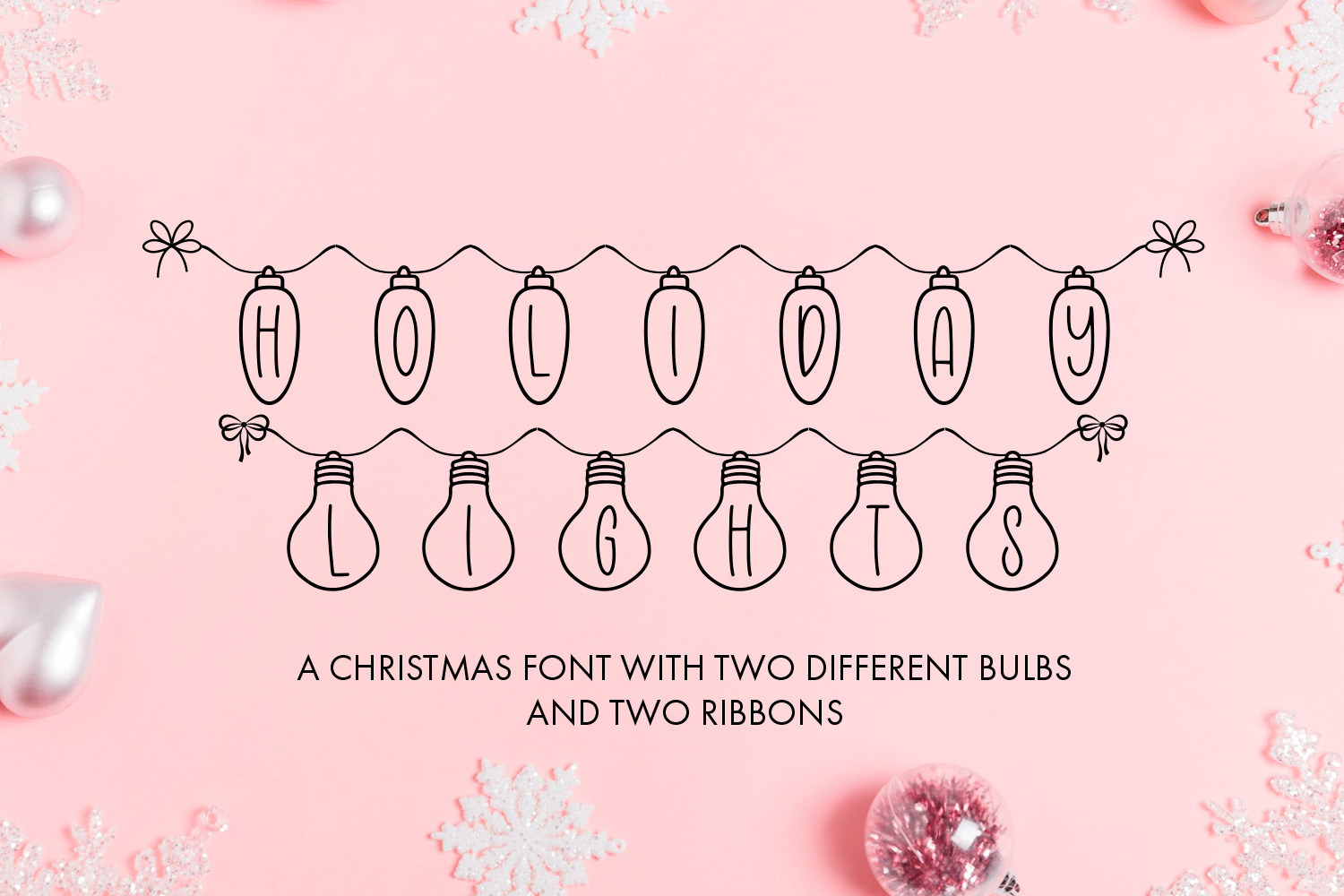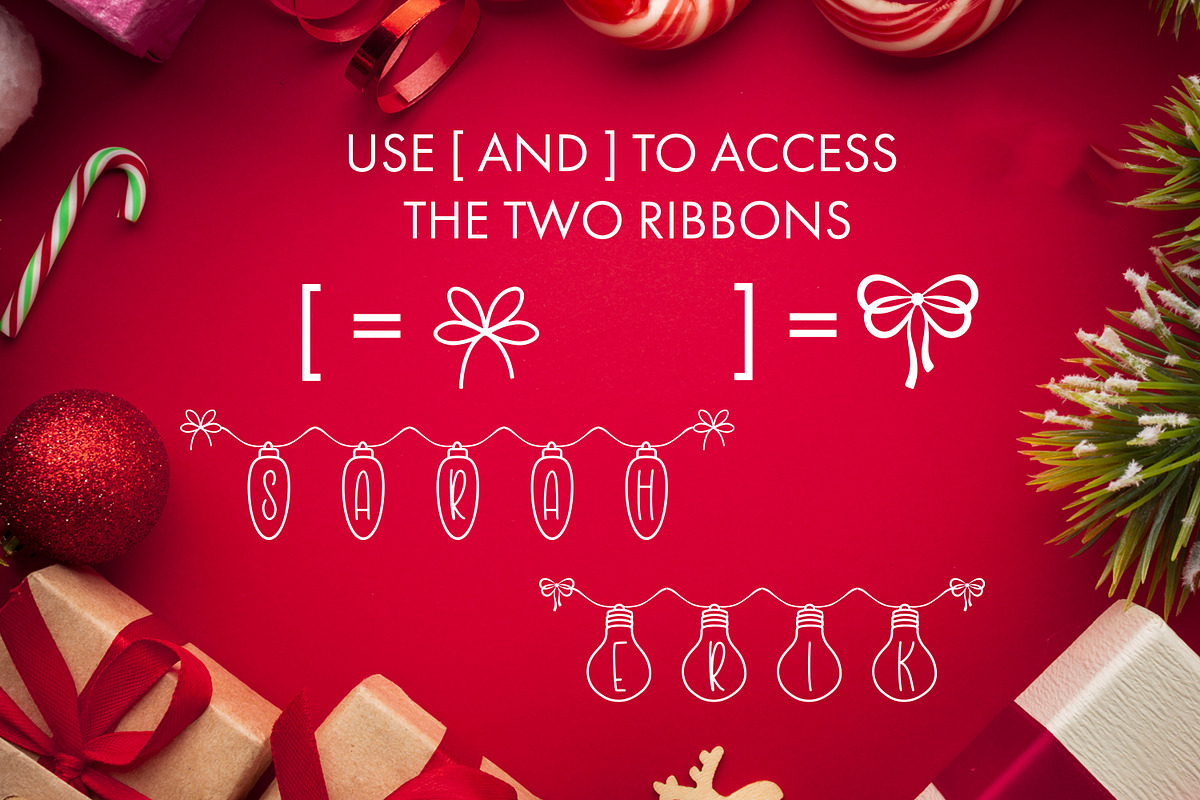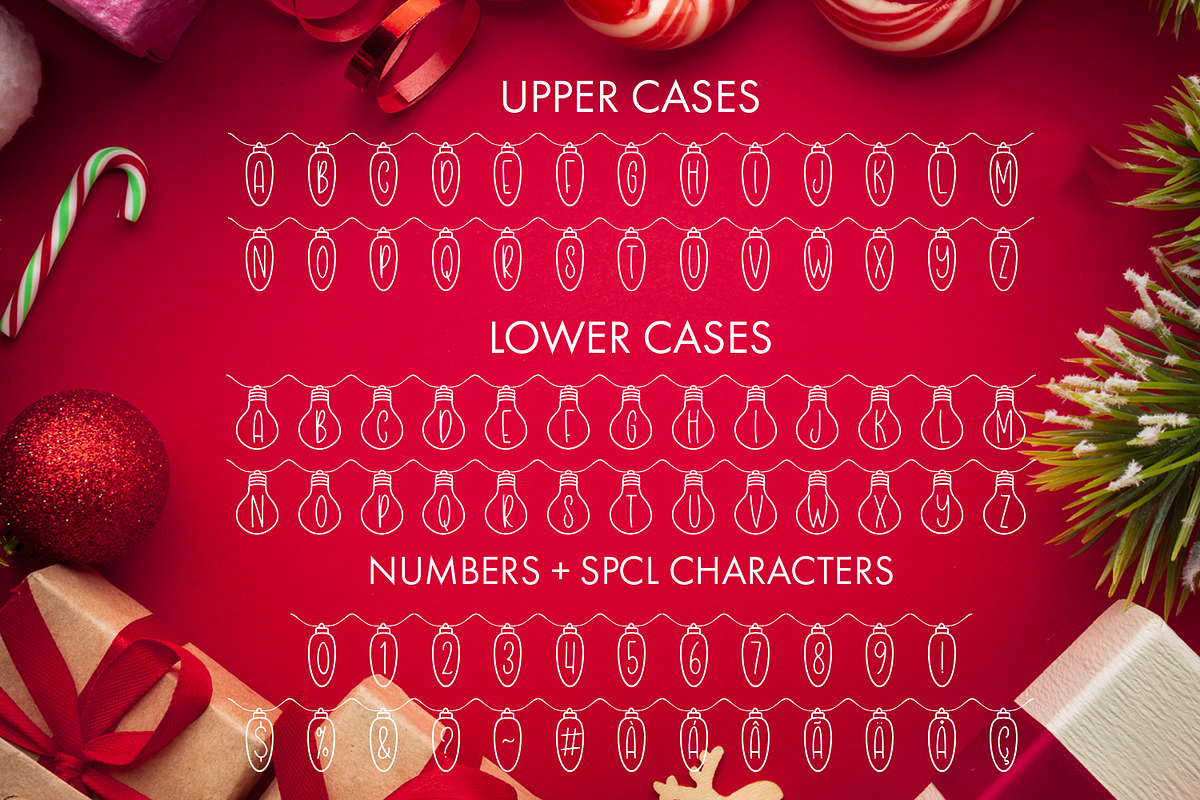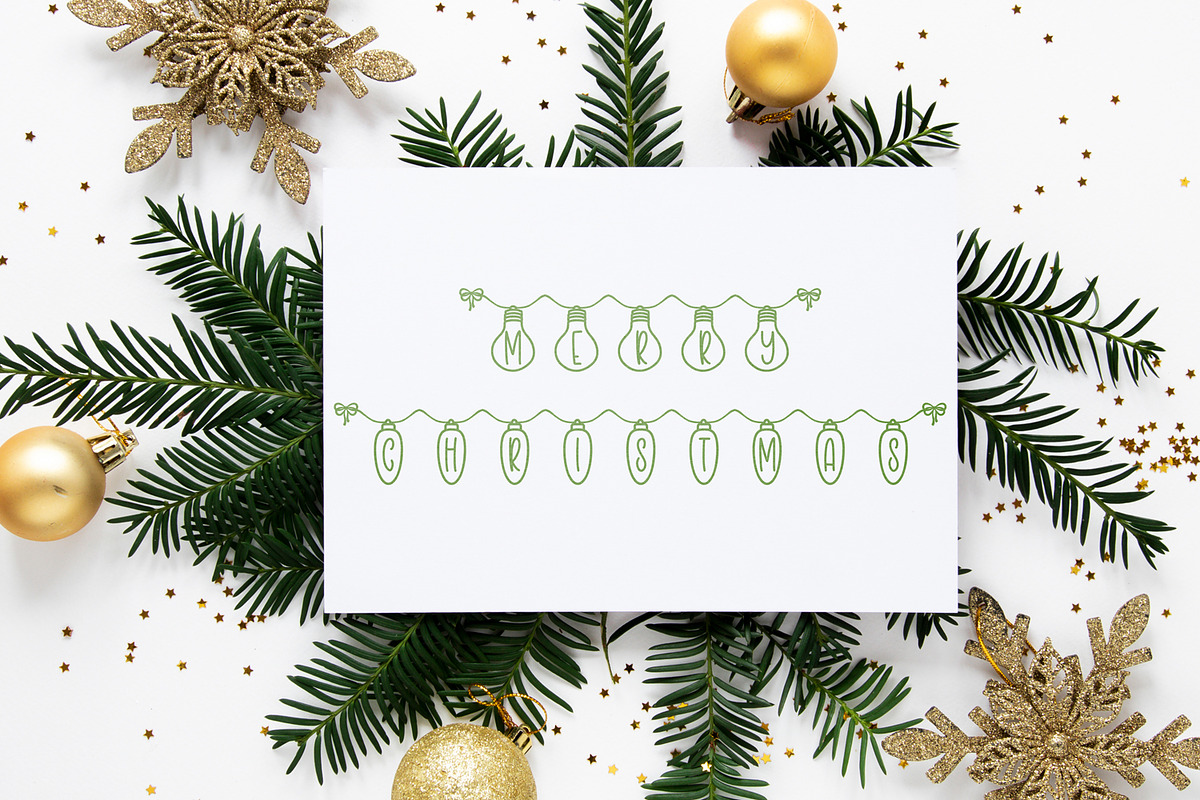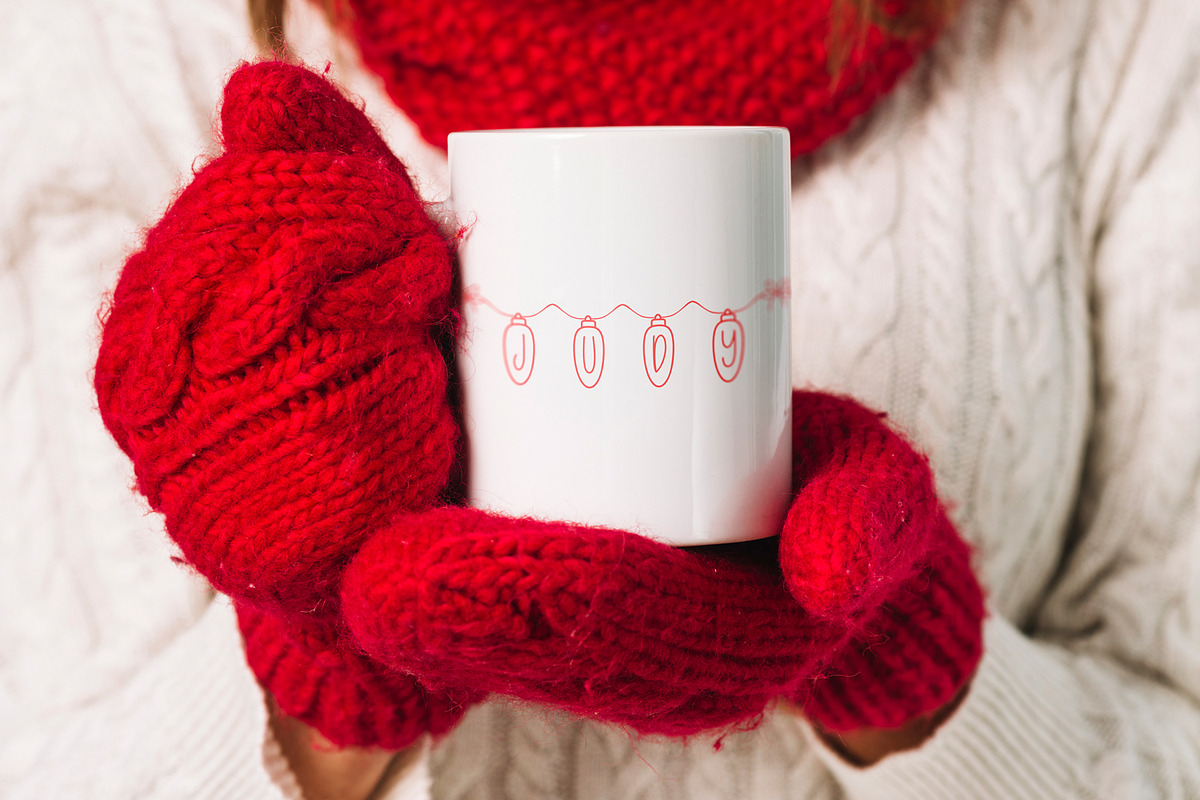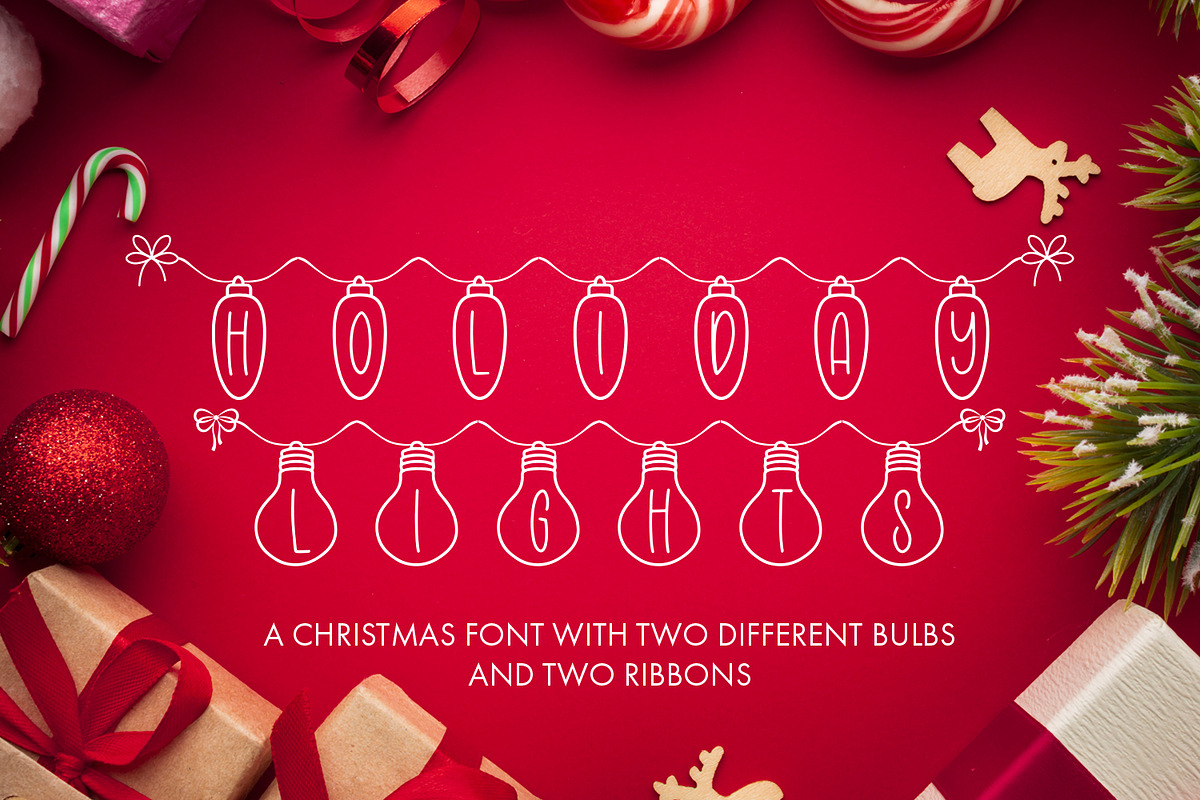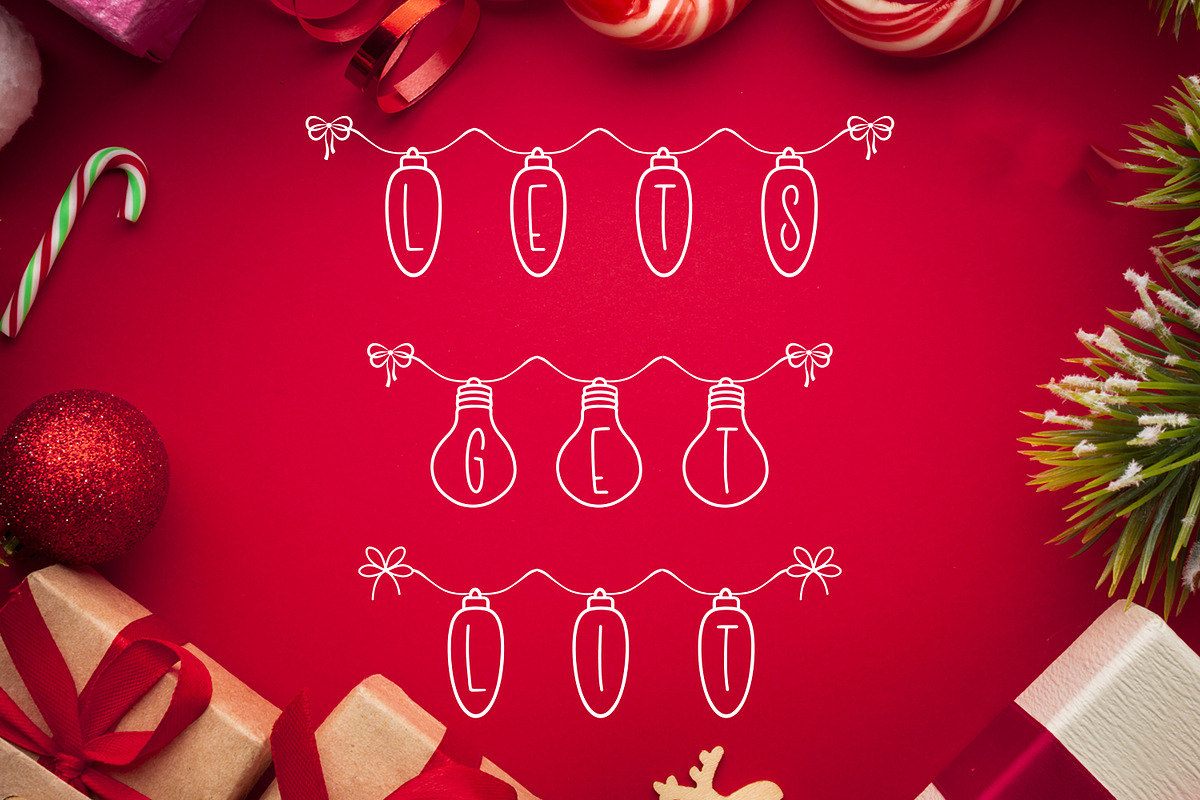
Holiday Lights - Christmas Font
Holiday Lights - A Handwritten Christmas Font
Experience the enchantment of 'Christmas Tinsel,' where letters come alive within holiday lights! With two dazzling bulb styles and two ribbon options, this font illuminates your festive creations with the magic of the season. Brighten your designs with 'Christmas Tinsel' today!
This font can be used for anything such as T-Shirt designs, phone cases, greeting cards, invitations, mugs and so much more! Be creative but most importantly have fun!
- Holiday Lights - Comes with Uppercase A-Z and lowercase a-z letters, 0-9 numbers, stylistic alternates, limited punctuation and supports Western European Languages